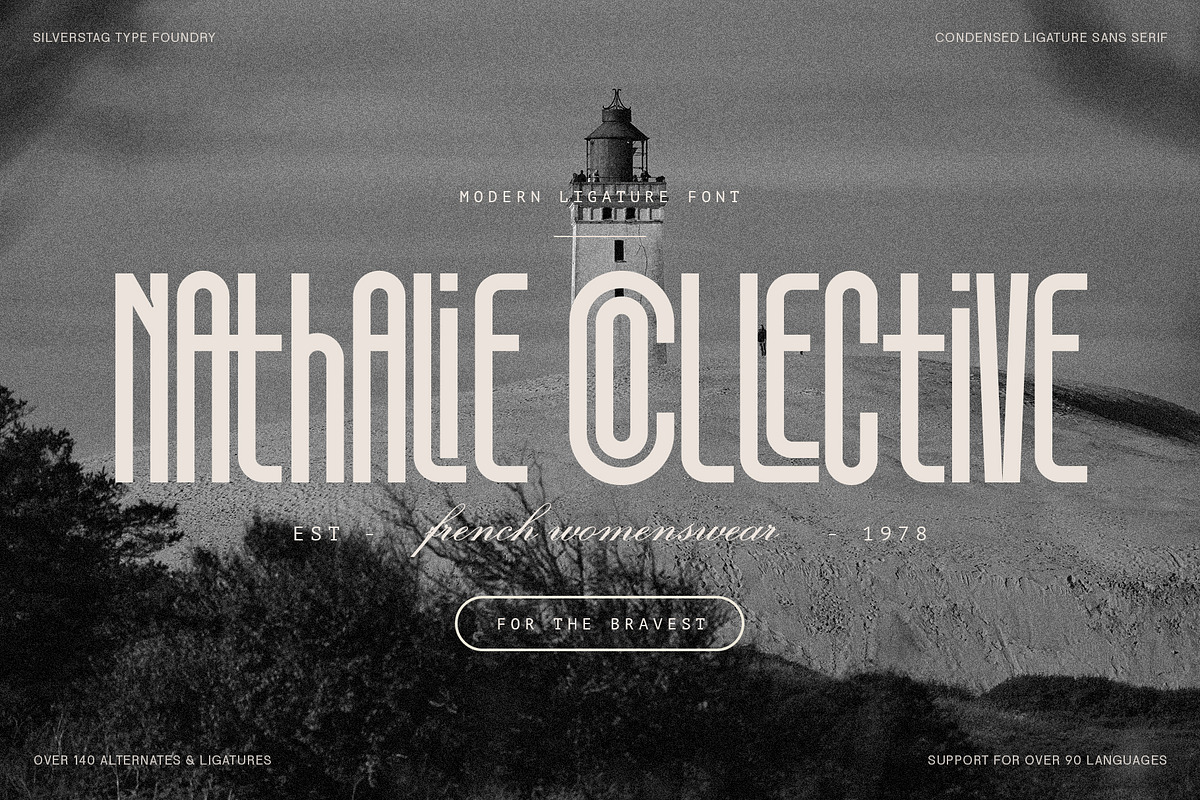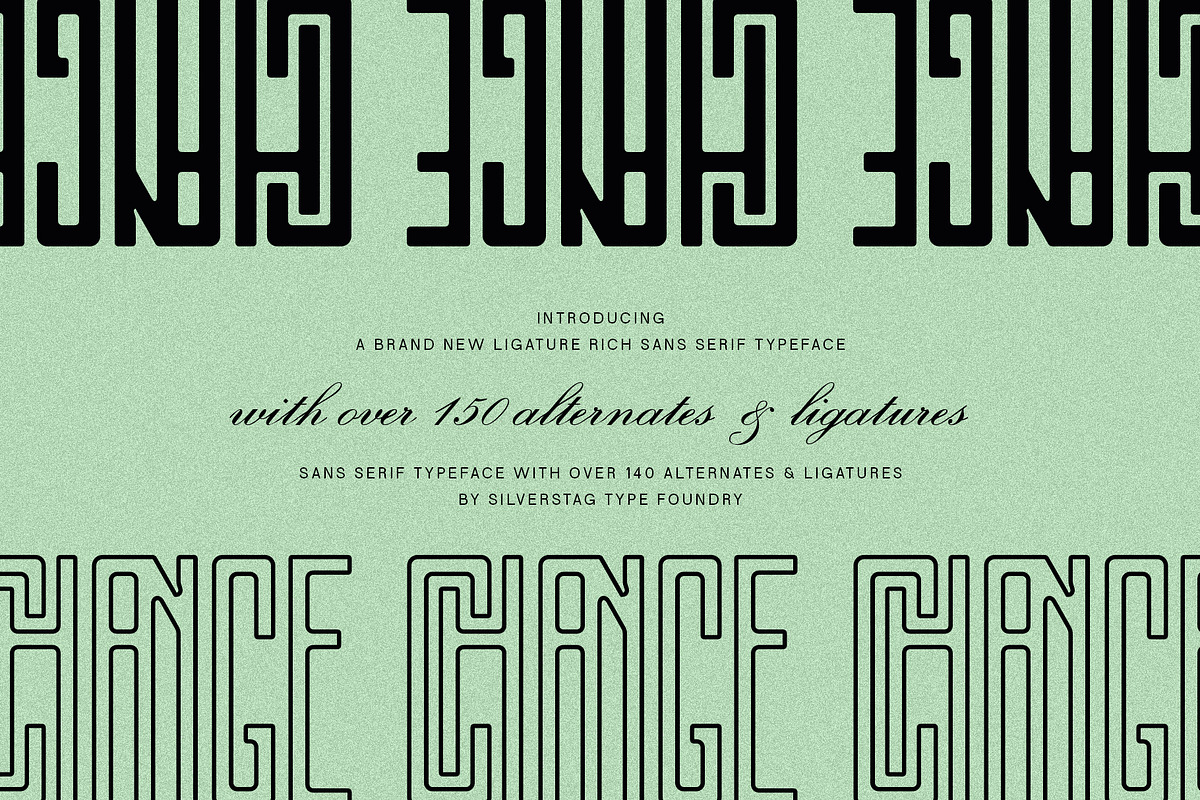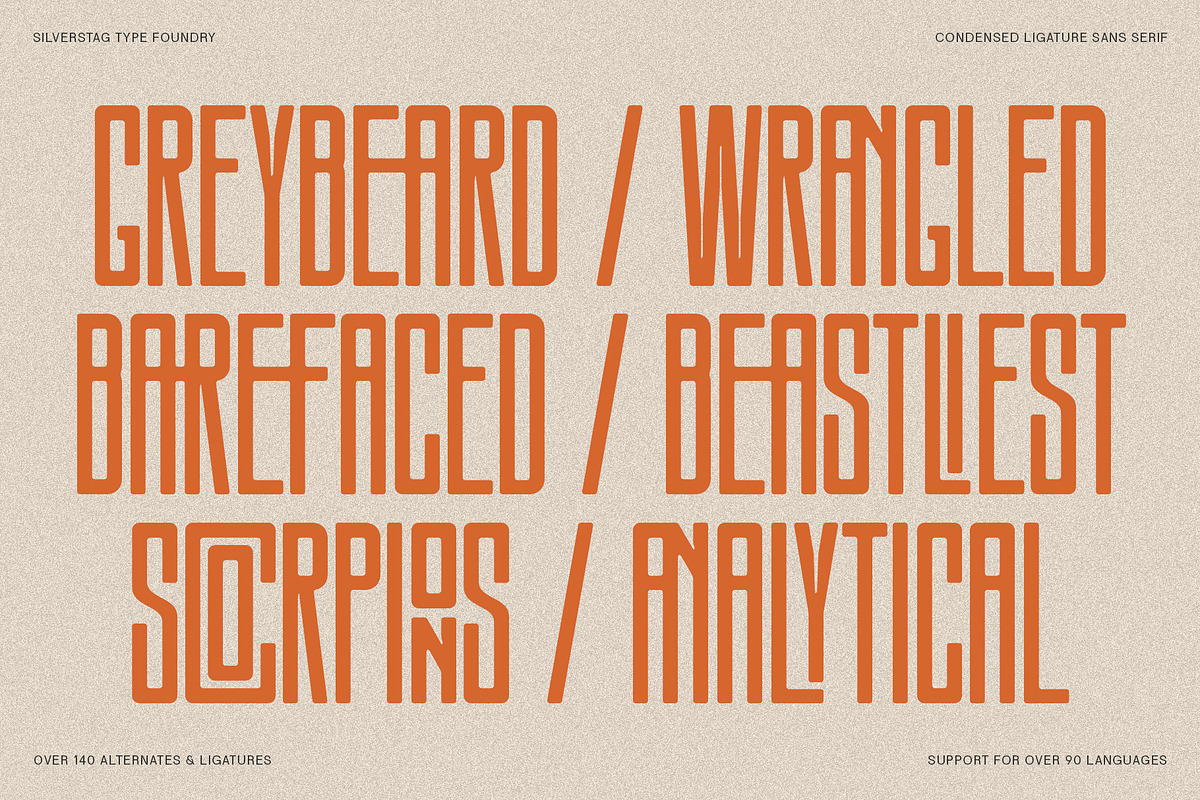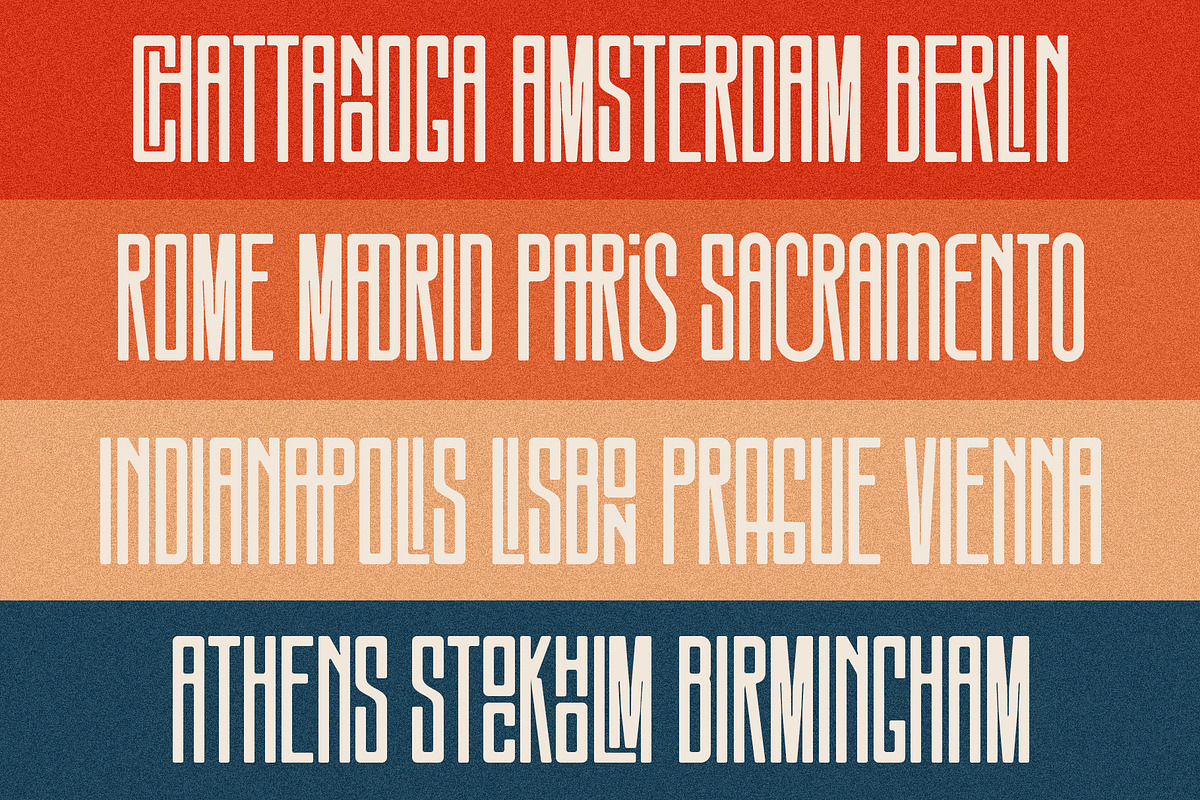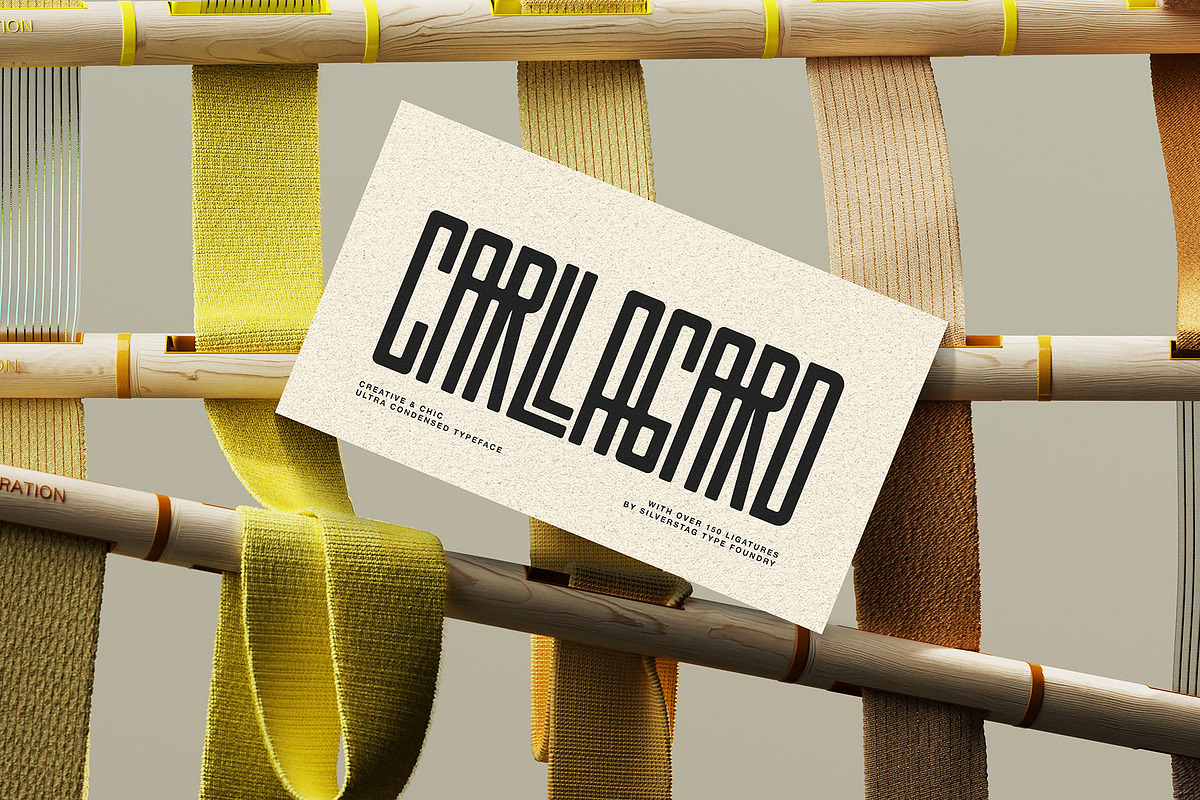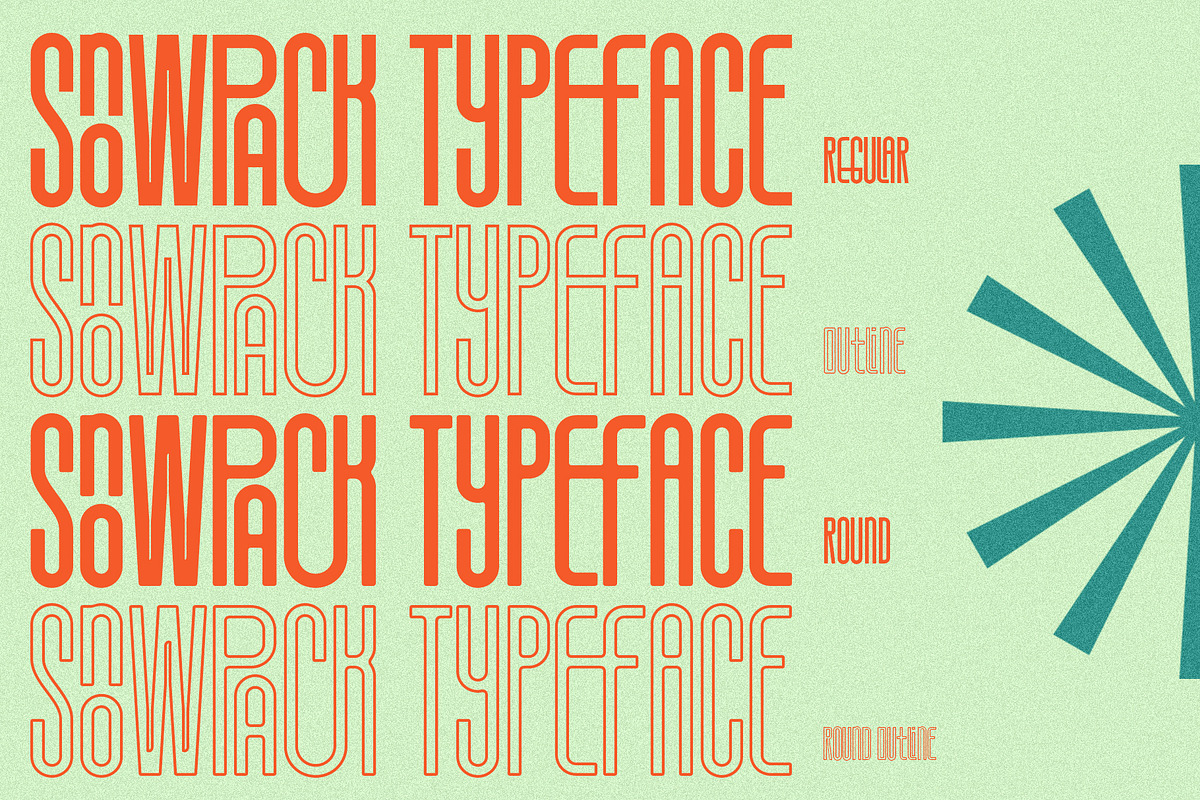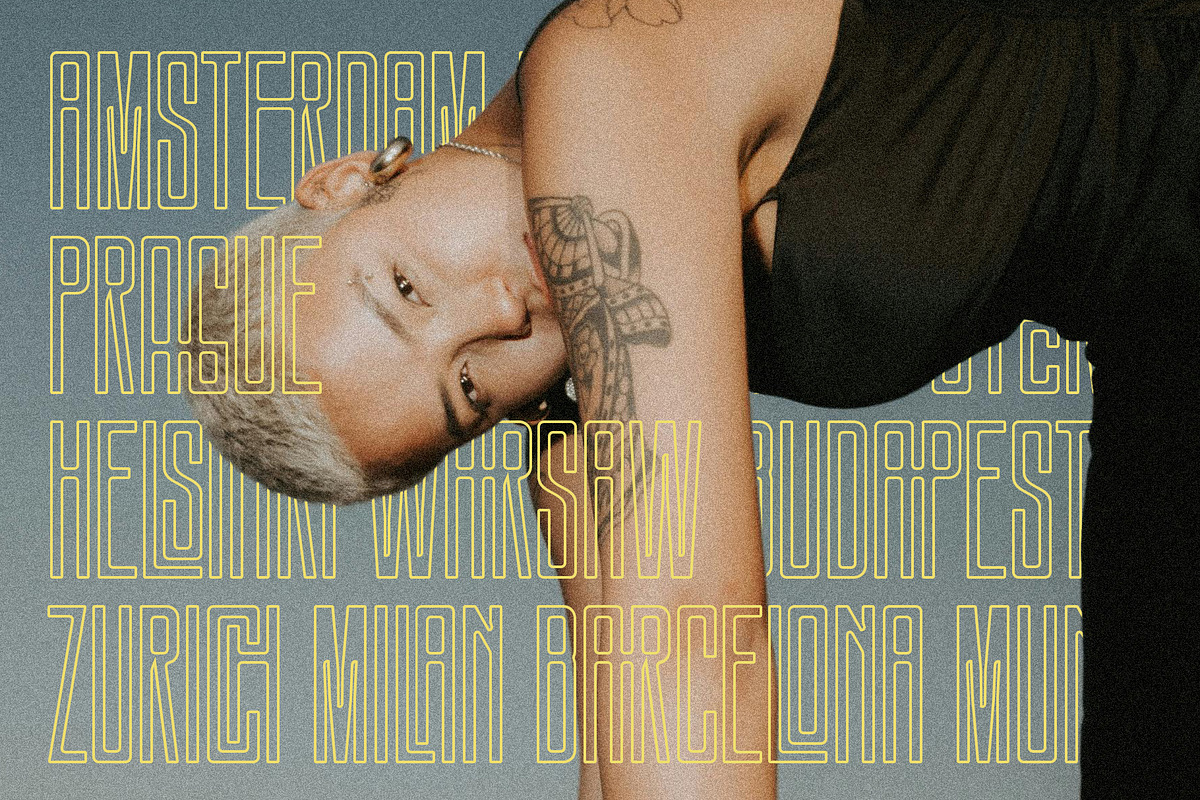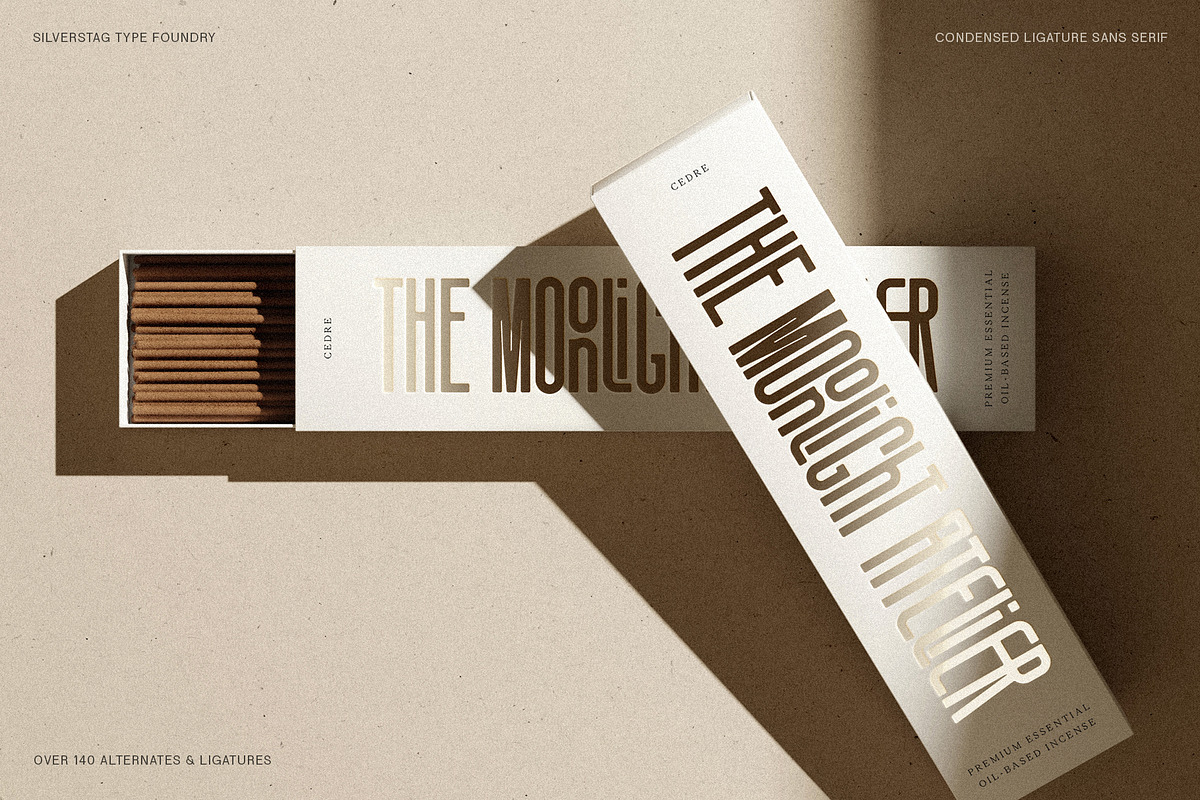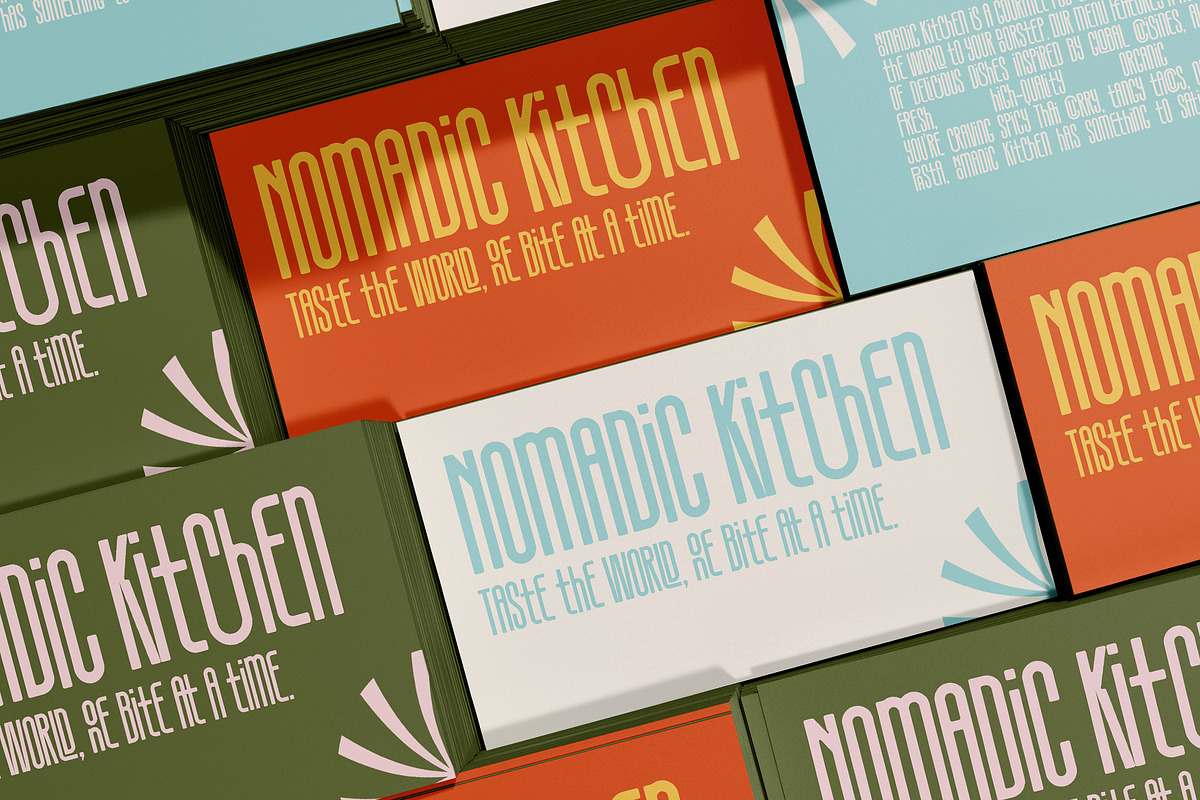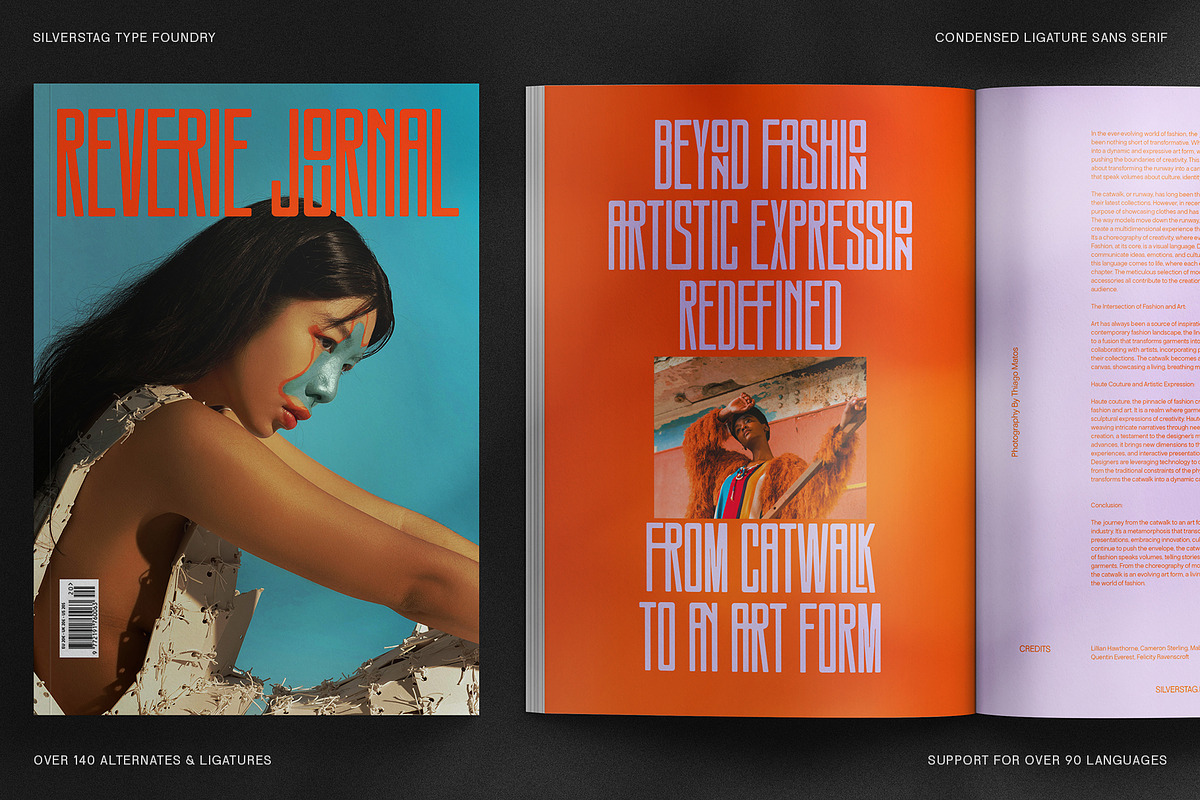
SLTF Snowpack - Ultra Condensed Font
SLTF Snowpack: The Bold and Ultra-Condensed Sans Serif Typeface
Unleash your creativity with SLTF Snowpack, a cutting-edge sans serif font designed to make a bold statement. With its ultra-condensed letterforms, over 140 ligatures and alternates, and support for 90+ languages, Snowpack is your go-to typeface for projects that demand sleek sophistication and versatility.
Available in four unique styles—Regular, Regular Outline, Round, and Round Outline—Snowpack offers endless possibilities for customization and creative expression.
- Ligature Rich: Over 140 custom ligatures and alternates for dynamic and creative typography.
- Ultra-Condensed Design: A space-saving yet bold sans serif style that grabs attention.
- Multilingual Support: Covers over 90 languages, perfect for global designs.
- Four Variants: Regular, Regular Outline, Round, and Round Outline, giving you unmatched flexibility.
SLTF Snowpack is the ideal font for branding, editorial headlines, posters, packaging, and modern logos. Its clean and sharp letterforms make it especially suitable for travel-inspired designs, urban aesthetics, and tech-focused projects. The ultra-condensed style is perfect for maximizing space without sacrificing impact, making it ideal for minimalist layouts and bold statements.
Whether you’re designing for a luxury skincare brand, a chic fashion label, or a creative art project, Snowpack delivers the perfect balance of functionality and flair.
Snowpack stands out with its versatility and boldness, providing you with a unique combination of creative ligatures and streamlined styles. Whether you prefer the clean precision of the Regular variant or the playful curves of the Round style, Snowpack adapts to your vision effortlessly. With the additional Outline options, you can create layered, multidimensional designs that truly captivate your audience.